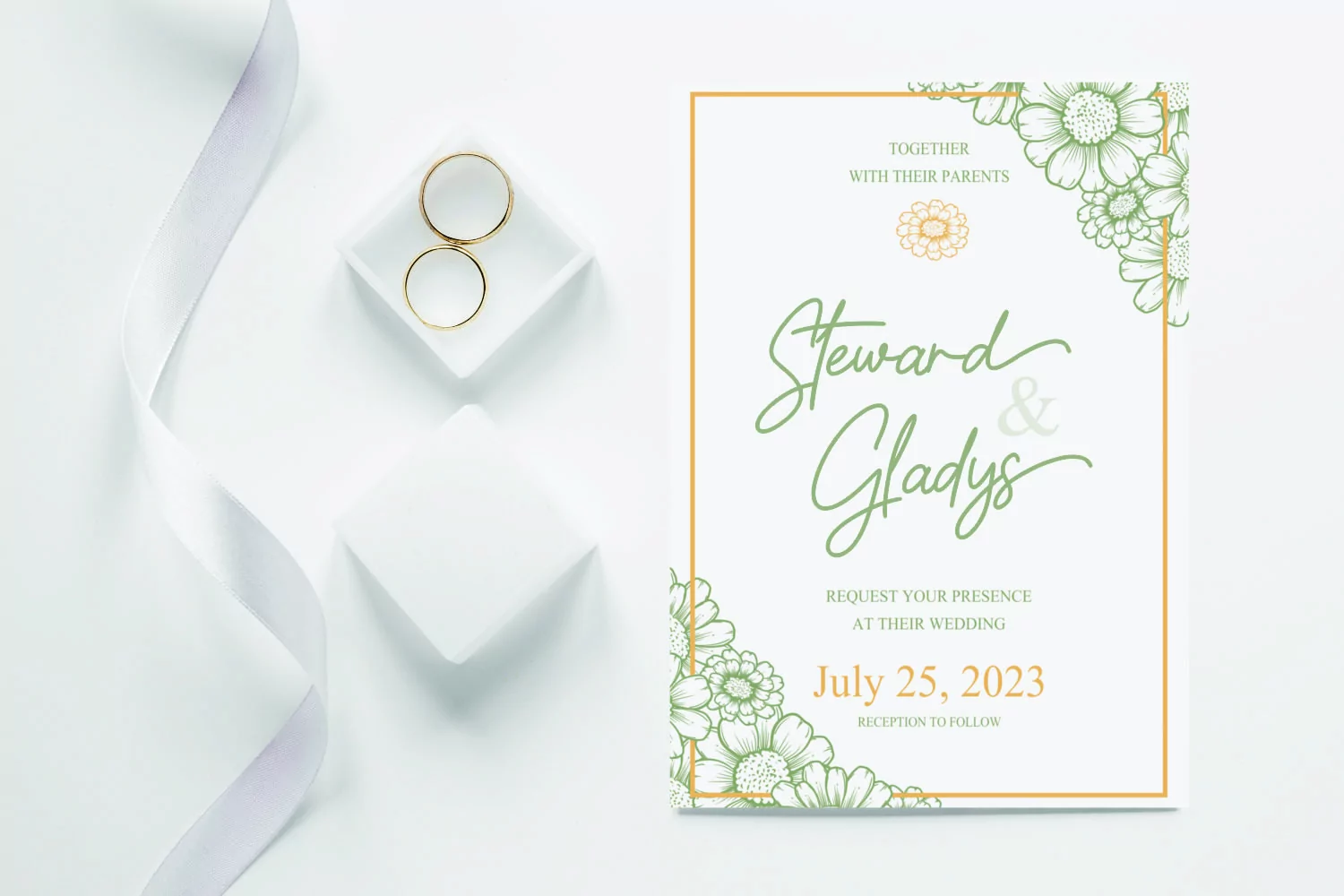
Best Friend
Introducing Best Friend.
It is a natural signature font with a handwritten style.
Best Friend feels incredibly elegant and flowing. It looks stunning on wedding invitations, thank you cards, quotes, greeting cards, logos, business cards, and every other design which needs a handwritten touch.
It features a varying baseline, smooth lines, gorgeous glyphs, and stunning alternates.